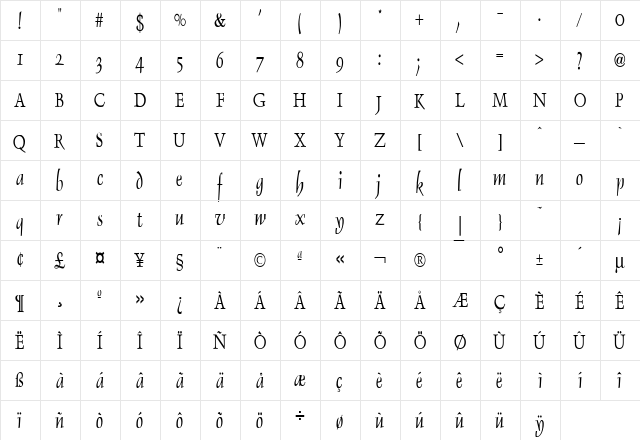
Dolphin Thin Normal
Design Context for Dolphin Thin Typeface
Dolphin Thin offers clean, dependable letterforms without strong stylistic allegiance, making it a practical choice for designers who need flexibility. Its slender proportions lend an understated elegance to any composition.